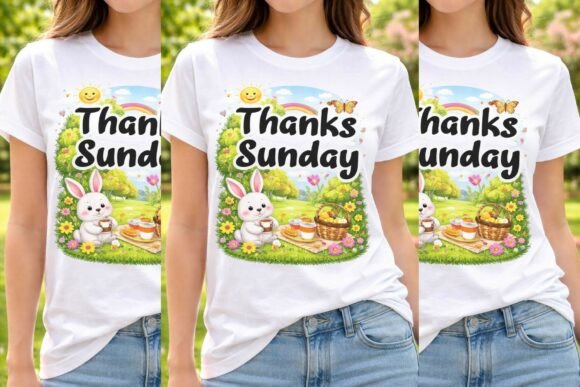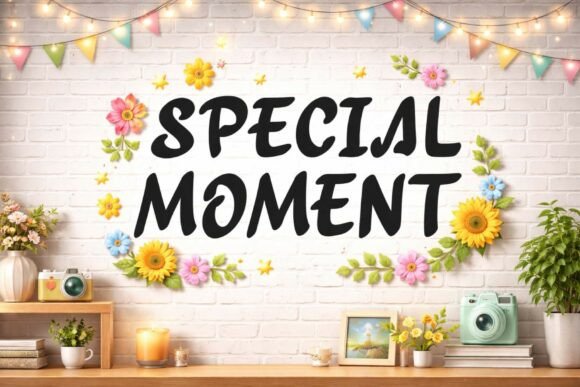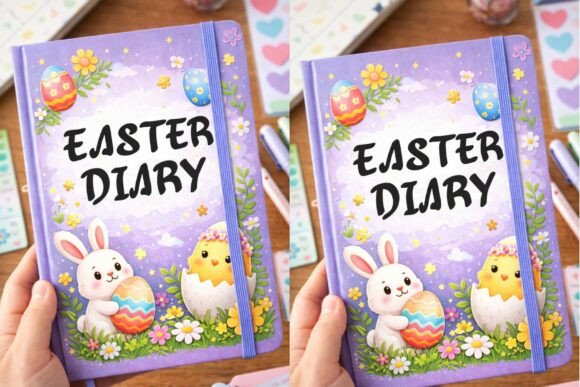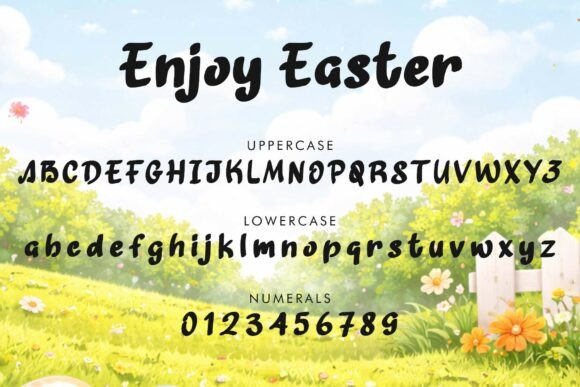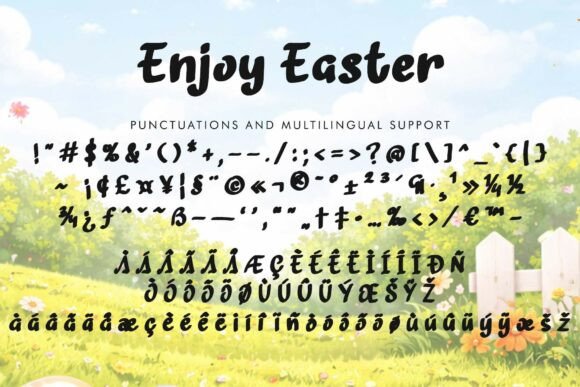
Enjoy Easter Font: The Perfect Addition to Your Easter and Spring Designs
Are you looking for a unique and adorable font to elevate your Easter and spring designs? Look no further than the Enjoy Easter font! This cute and playful display font is perfect for adding a touch of whimsy and fun to your projects. In this article, we’ll dive into the features and benefits of the Enjoy Easter font, and explore the many ways you can use it to create stunning designs.
What is Enjoy Easter Font?
“Enjoy Easter” is a one-of-a-kind display font that’s specifically designed to capture the spirit of Easter and spring. Its cute and quirky style makes it perfect for a wide range of design projects, from Easter greeting cards and egg hunt posters to branding, logos, and more. The font’s playful and carefree vibe is sure to bring a smile to anyone’s face, making it an excellent choice for designers and crafters who want to create fun and engaging designs.
Key Features of Enjoy Easter Font
- Cute and unique design: The Enjoy Easter font boasts a distinctive and charming style that’s sure to stand out in any design.
- Perfect for Easter and spring designs: The font’s Easter and spring-inspired theme makes it an ideal choice for designers working on projects related to these holidays.
- Versatile: The Enjoy Easter font can be used for a wide range of design projects, including banners, posters, branding, logos, comics, magazines, business branding, t-shirts, book titles, cartoons, tattoos, stickers, and more.
Creative Ways to Use Enjoy Easter Font
The Enjoy Easter font is incredibly versatile, and can be used in a variety of creative ways to add a touch of Easter and spring charm to your designs. Here are a few ideas to get you started:
- Easter greeting cards: Create adorable and personalized Easter greeting cards for friends and family using the Enjoy Easter font.
- Easter egg hunt posters: Design eye-catching posters to promote Easter egg hunts and other spring events.
- Branding and logos: Use the Enjoy Easter font to create unique and memorable branding and logos for Easter and spring-themed businesses.
- T-shirts and apparel: Design fun and festive t-shirts and apparel for Easter and spring using the Enjoy Easter font.
- Book titles and covers: Add a touch of whimsy to your book titles and covers with the Enjoy Easter font.
- Comics and cartoons: Use the Enjoy Easter font to add a playful and humorous touch to your comics and cartoons.
- Tattoos and stickers: Design custom tattoos and stickers with the Enjoy Easter font for a fun and unique way to celebrate Easter and spring.
Why Choose Enjoy Easter Font?
With so many fonts available, why choose the Enjoy Easter font? Here are just a few reasons why this font stands out:
- Unique and distinctive: The Enjoy Easter font is one-of-a-kind, ensuring that your designs will stand out from the crowd.
- High-quality design: The font is carefully crafted to ensure that it looks great in any design.
If you’re looking for a unique and adorable font to elevate your Easter and spring designs, look no further than the Enjoy Easter font. With its cute and playful design, versatility, and ease of use, this font is perfect for designers and crafters who want to create fun and engaging designs. Whether you’re working on Easter greeting cards, branding, logos, or more, the Enjoy Easter font is sure to bring a touch of whimsy and charm to your projects.